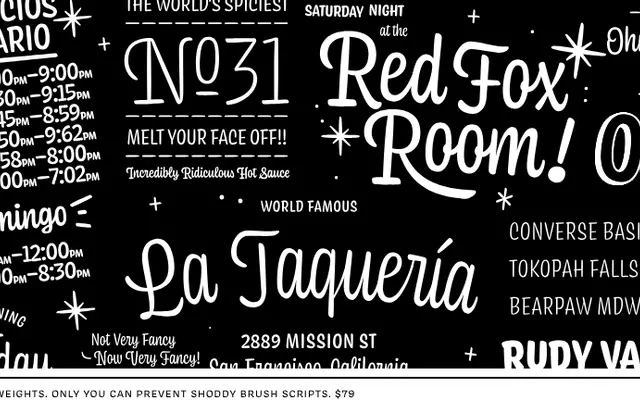
Coniferous specimen from OH no Type
A connected script modelled on the hand-lettered signage used at American National Forest entrances, available in six weights with swash caps and a variable font.
Built from the routed yellow script of US National Forest signs, the family runs from Thin to Black with seamless letter connections and a set of alternate swash capitals for display use. OpenType features cover contextual substitution, ligatures, bouncing caps and fractions, extending its range beyond purely outdoor or heritage-themed work. A variable font is included alongside the six individual static styles.
A connected script with seamless letter joins and swash caps, directly modelled on the hand-lettered signage of American National Forests. The style sits within casual or informal script traditions.